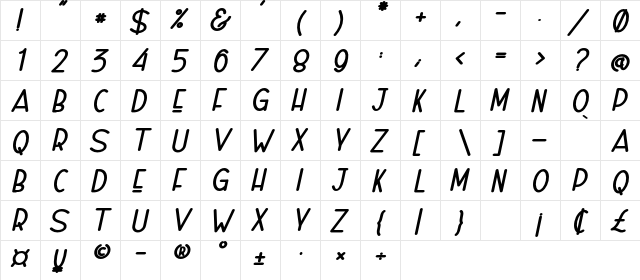
Naura Semi Bold Slant_DEMO
Design Context for Naura Typeface
Naura offers clean, dependable letterforms without strong stylistic allegiance, making it a practical choice for designers who need flexibility. The heavy weight commands attention and anchors typographic hierarchies.